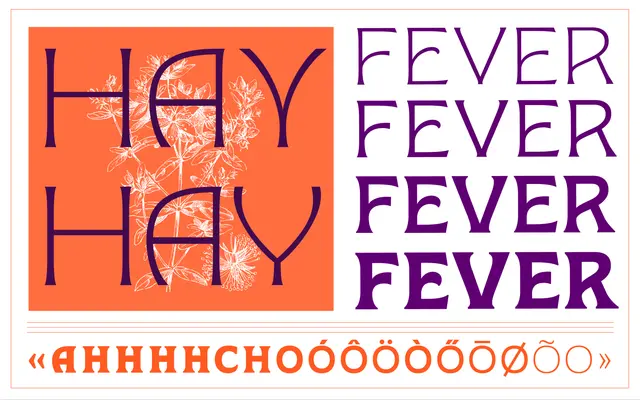
Charlock
A nine-weight geometric sans from Muccatypo, available as both static styles and a single variable font file with a full weight axis.
Charlock spans nine weights from Thin to Black with a matching variable font covering the same range. OpenType features include small capitals, small capitals from capitals, case-sensitive forms, swash alternates, proportional and tabular figures, and a stylistic set offering alternate forms for characters such as E, F, K, R, U, X and Y. Latin Extended-A coverage supports a wide range of European languages from Afrikaans to Zulu.
The glyph set and naming suggest a clean, contemporary geometric sans with variable weight axis; no serifs are present and the even stroke geometry points firmly to the geometric sans subcategory.